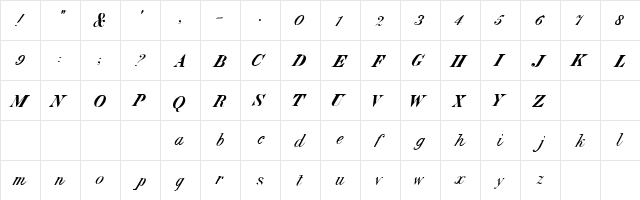
Italic HPLHS
Italic is a composed and adaptable typeface that performs quietly and consistently across a wide range of design contexts. Its italic angle brings a sense of urgency and motion to the letterforms.
Pro Tip: Use Italic for emphasis, pull quotes, and subheadings where its slanted energy can add rhythm to the layout.